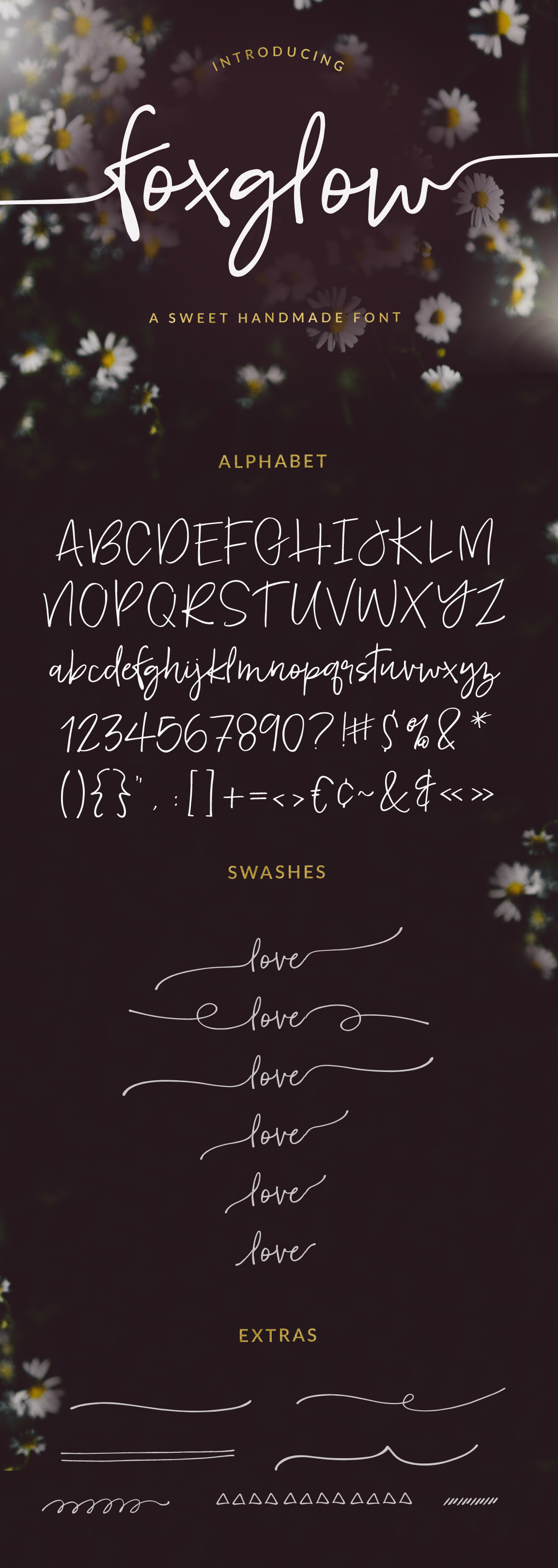
Foxglow Font
Meet Foxglow... a fun, handwritten font with swashes and extras. Foxglow has a sweet, handwritten vibe and would be a great fit for a variety of projects.
- Foxglow- An Opentype font with tons of features! Coded with PUA Unicode. This means if you don't have a glyphs panel, it's no problem... you can still access extra swashes and more! Tutorial on how to use all the font's hidden character's is below.
Opentype features include contextual alternates for double letters and unique pairs (bb, cc, ll, tt, th, etc)
Foxglow would be a perfect fit for wedding invitations, branding, websites, signage, and so much more.